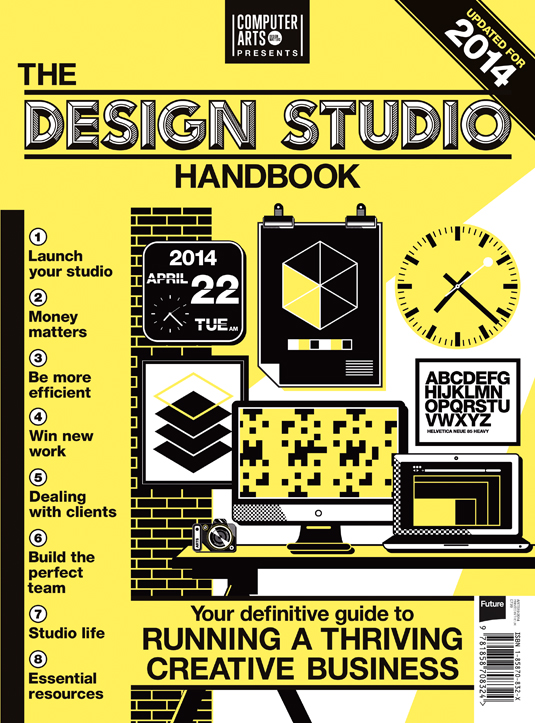
Greatest fonts countdown: 73 - Idler
We're counting down the 100 greatest typefaces in existence - here's the font at number 73.
FontShop AG, the renowned type foundry, conducted a survey based on historical relevance, sales at FontShop.com, and aesthetic quality. With a few additions from the experts at Creative Bloq and Computer Arts magazine, the best fonts ever were selected for the new book, 100 Best Typefaces Ever.
But without further ado, here is the 73rd best typeface…
73. Idler
- Mark Butchko, 2011
Idler is an all caps, modular display typeface meant to be used for big, bold lettering and it was recently used extensively on Computer Arts' sister title, Computer Arts Presents.
The typeface’s two main weights (Idler Detail and Idler Plain) can, according to designer Mark Butchko, "be used effectively as single coloured layers on their own, but the typeface’s true potential is realised when the user layers the shaded weights along with the main weights to create a colourful 3D shading effect." The Idler family contains six weights: Idler Detail, Idler Plain, Idler Inner, Idler Highlight, Idler Shadow and Idler Solid.